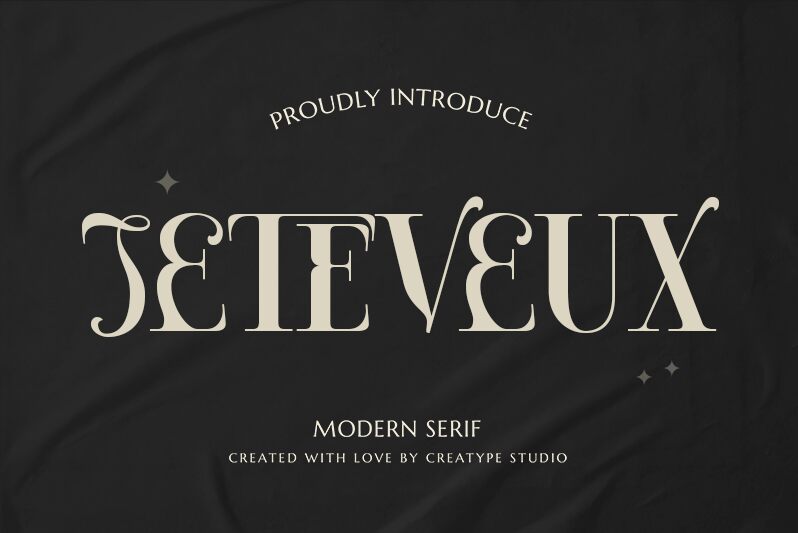
Jeteveux
Jeteveux font by Creatype Studio is an elegant and dramatic display typeface with a whimsical feel. Its distinctive lines and dynamic strokes infuse an artistic flair and expressive touch into the letters, offering both tool for attention grabbing headlines and creative graphic designs. Perfectly balanced, legible, yet non-standard; this wonderful text stimulant combines beautiful proportions with great visual diversity.
This free display font supports various modern design projects. Grab your audience’s attention in branding or packaging designs. Create lovely posters, book covers or magazine covers. Use on social media with limited text requirement Instagram stories for example. Design eye-catching flyers or business cards when used as unique titles or typography logos for step-up recognition with stylish presentation visualizations too!